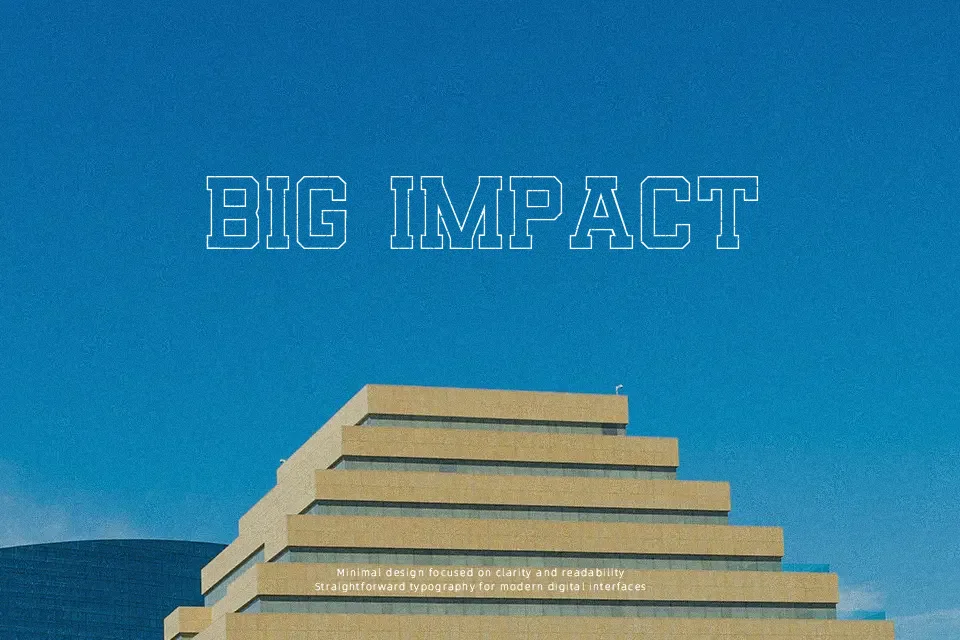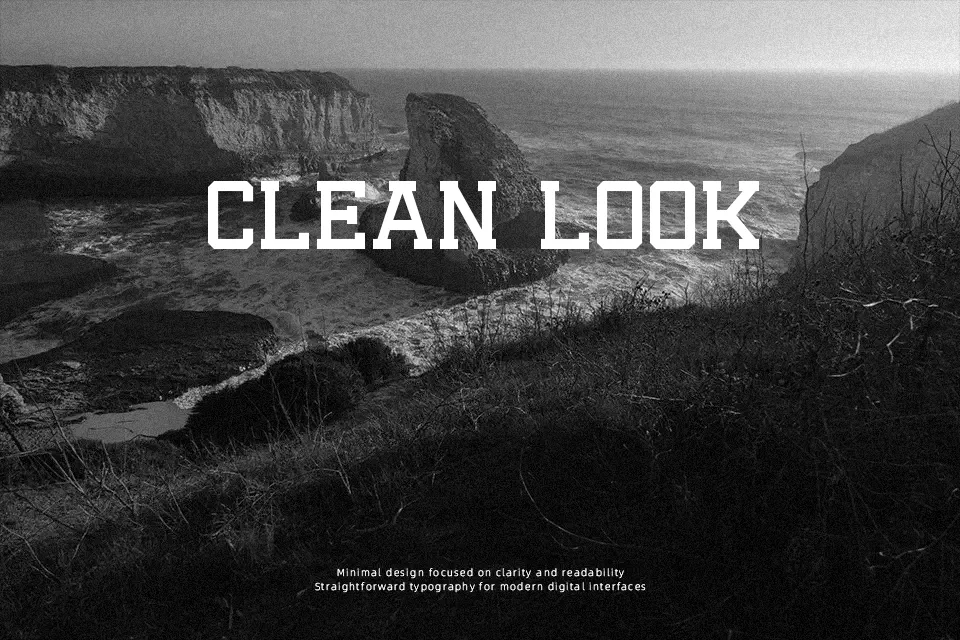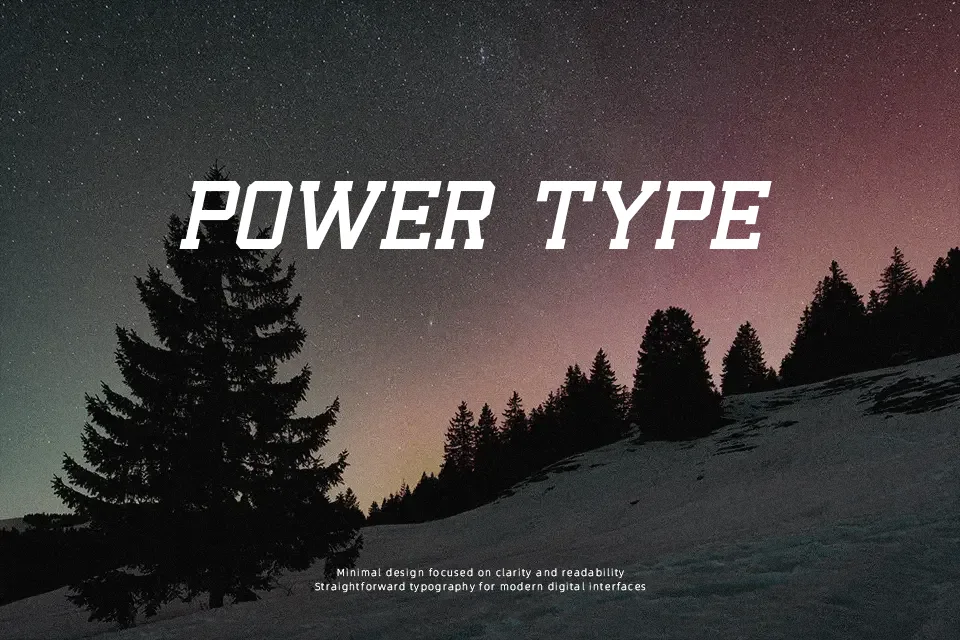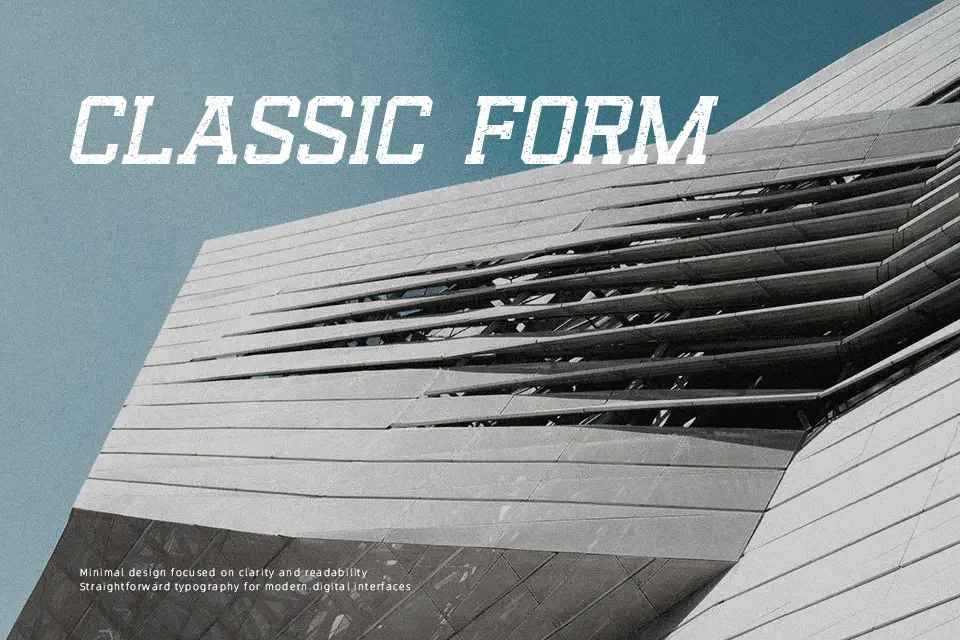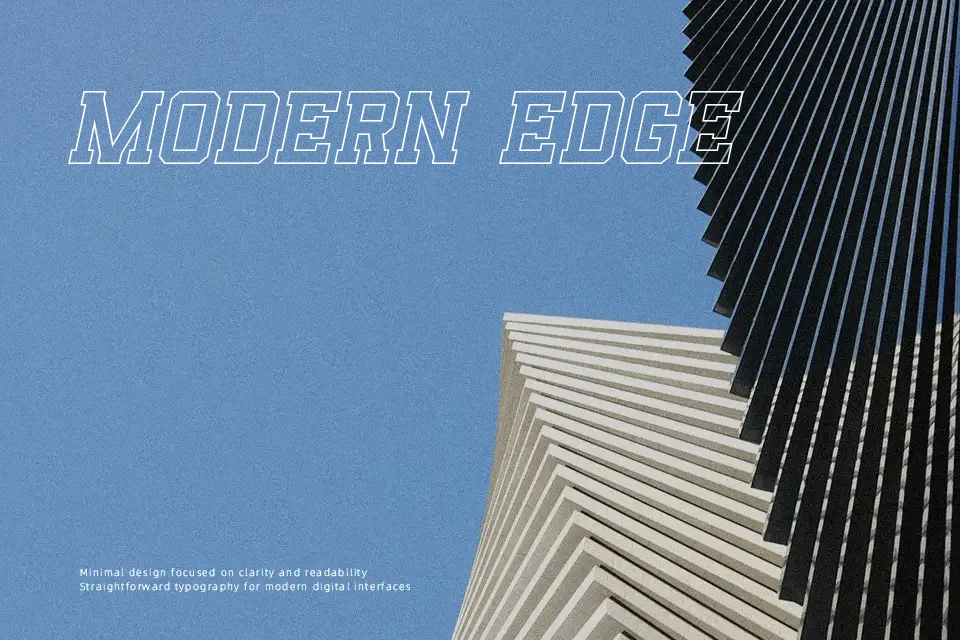
Reach Font
A striking sports logo or vintage apparel design benefits greatly from the commanding presence of Reach Font. This bold slab serif features thick, geometric letterforms that embody the spirit of classic varsity and collegiate typography. The strokes maintain a heavy, consistent weight that creates high visual impact and an assertive energy. Its solid structure and tight spacing provide a rugged, old-school charm that catches the eye immediately. The massive proportions perform exceptionally well in large display sizes, making headlines and team branding feel powerful. However, these same dense forms and all-caps design make the typeface completely unsuitable for long paragraphs, where the intense weight reduces continuous reading comfort.
esports team logos
vintage athletic apparel
sports event posters
college merchandise graphics
continuous paragraph text